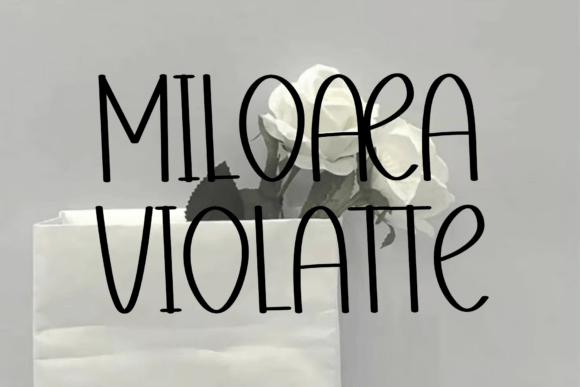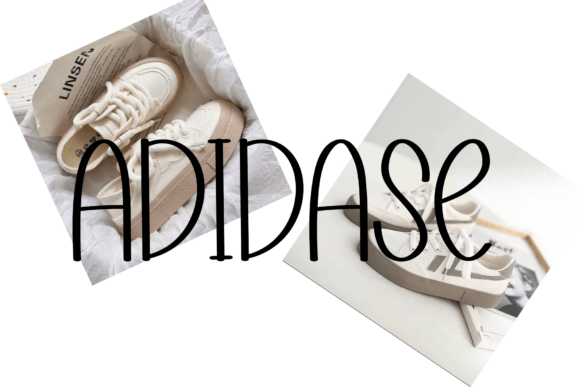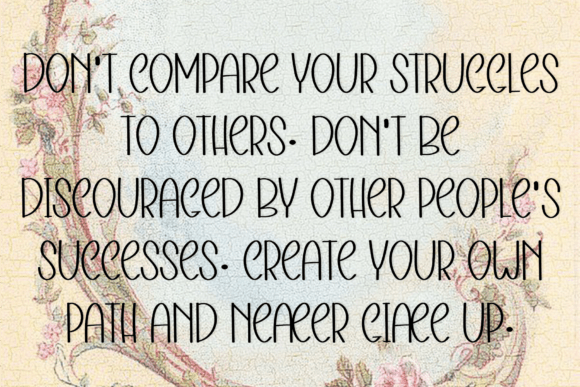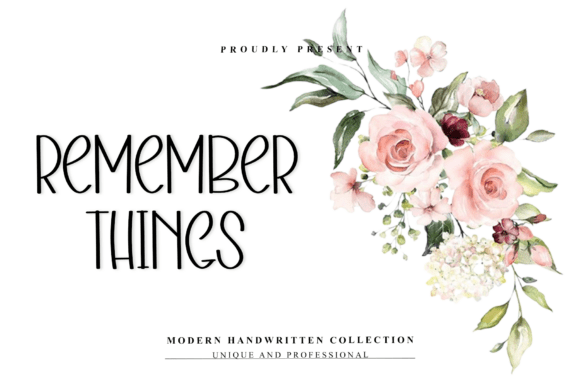
Introduction to Remember Things Font
Remember Things is a casual handwritten font that radiates warmth and personality.
Featuring smooth strokes, natural curves, and easy-flowing letterforms, it captures the charm of authentic handwriting with a modern, approachable feel Ideal for quotes, invitations, branding, and social media posts, it adds a personal and friendly touch to any design.